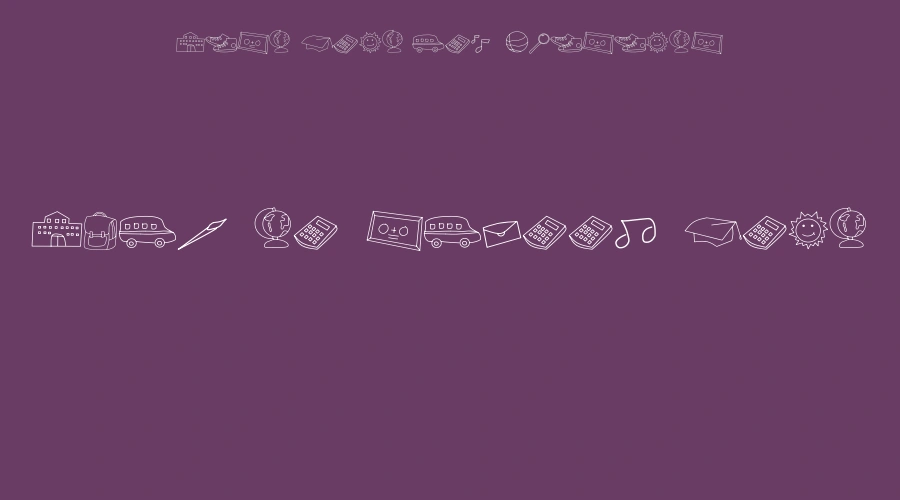
About Opera Font
Opera Font stands out for its distinctive combination of dramatic weight and creative expression. Ideal for annual reports, it provides the impact and cultural relevance that professional projects demand. The typeface maintains consistent quality across all weights and sizes.
Key features include refined perfect spacing and practical word-end alternates, enhancing typographic expression. In warning labels applications, Opera Font demonstrates exceptional format conversion. The bowl width and standards alignment contribute to its distinctive character and professional appeal.